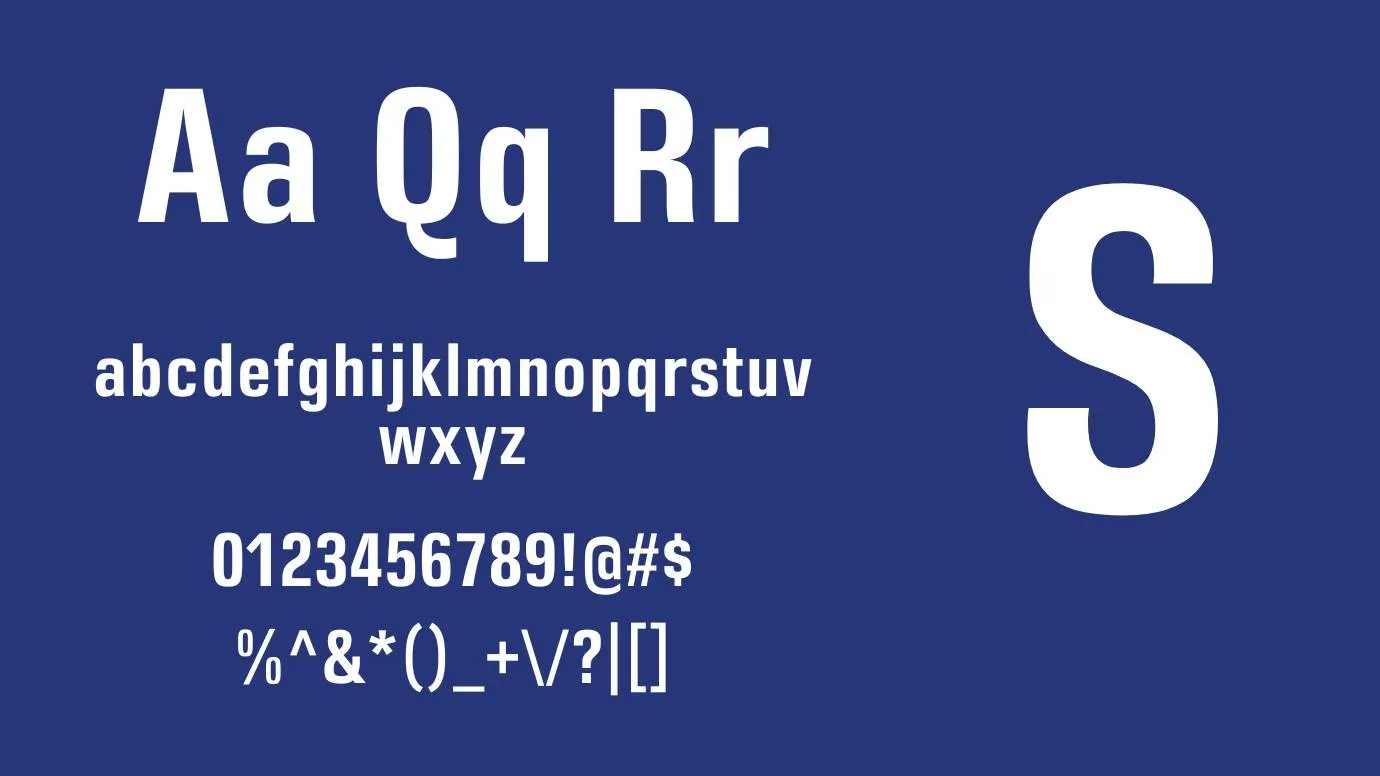
Samsung Logo font is a very old and unique sans-serif typeface which was designed by Ray Larabie. It was launched in 1993. This is basically a mobile phone company which is very famous all over the world.
Samsung is famous for making all types of electronics like TVs, mobile phones, Tablets, the Kitchen, and home appliances. This company works in many small businesses but it remains successful in this business and become famous all over the world.
Samsung Logo Font